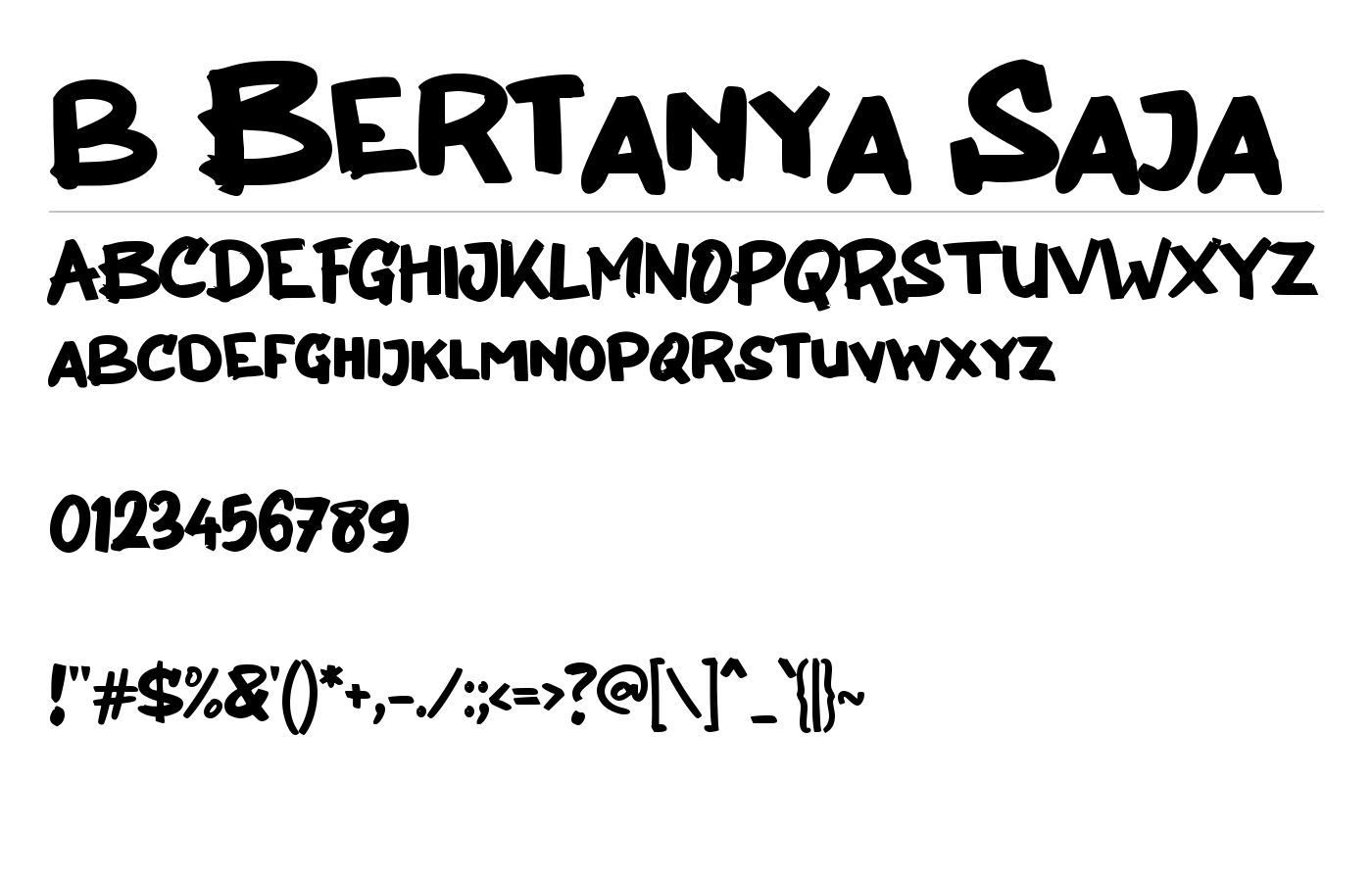
Bertanya Saja is a bold, playful sans serif font with a hand-drawn, informal style that gives it a friendly and approachable character. Its slightly uneven strokes and quirky letter shapes make it perfect for casual, fun designs like posters, children’s books, and creative branding that want to convey energy and warmth. This font works well in headlines or display text where a lively and relaxed tone is desired.
b Bertanya Saja Font
About b Bertanya Saja Font